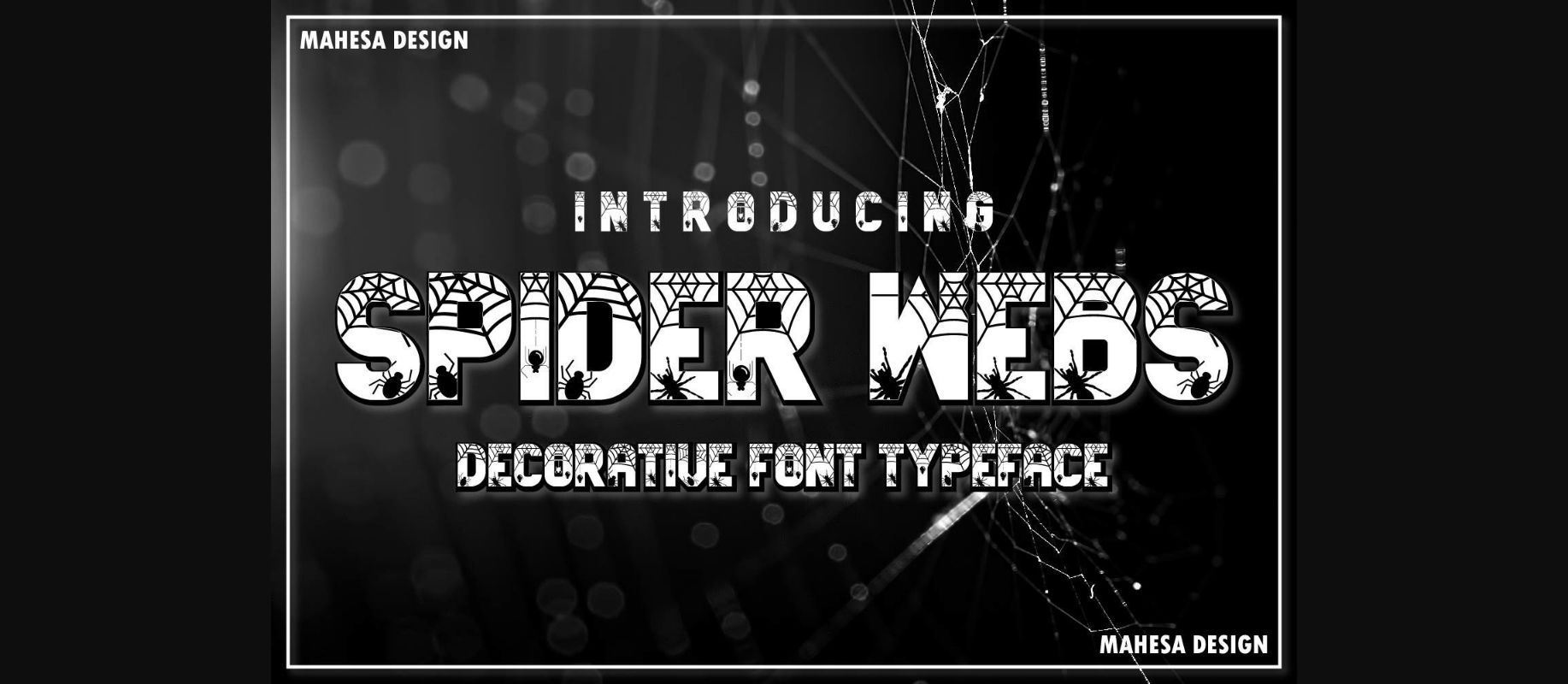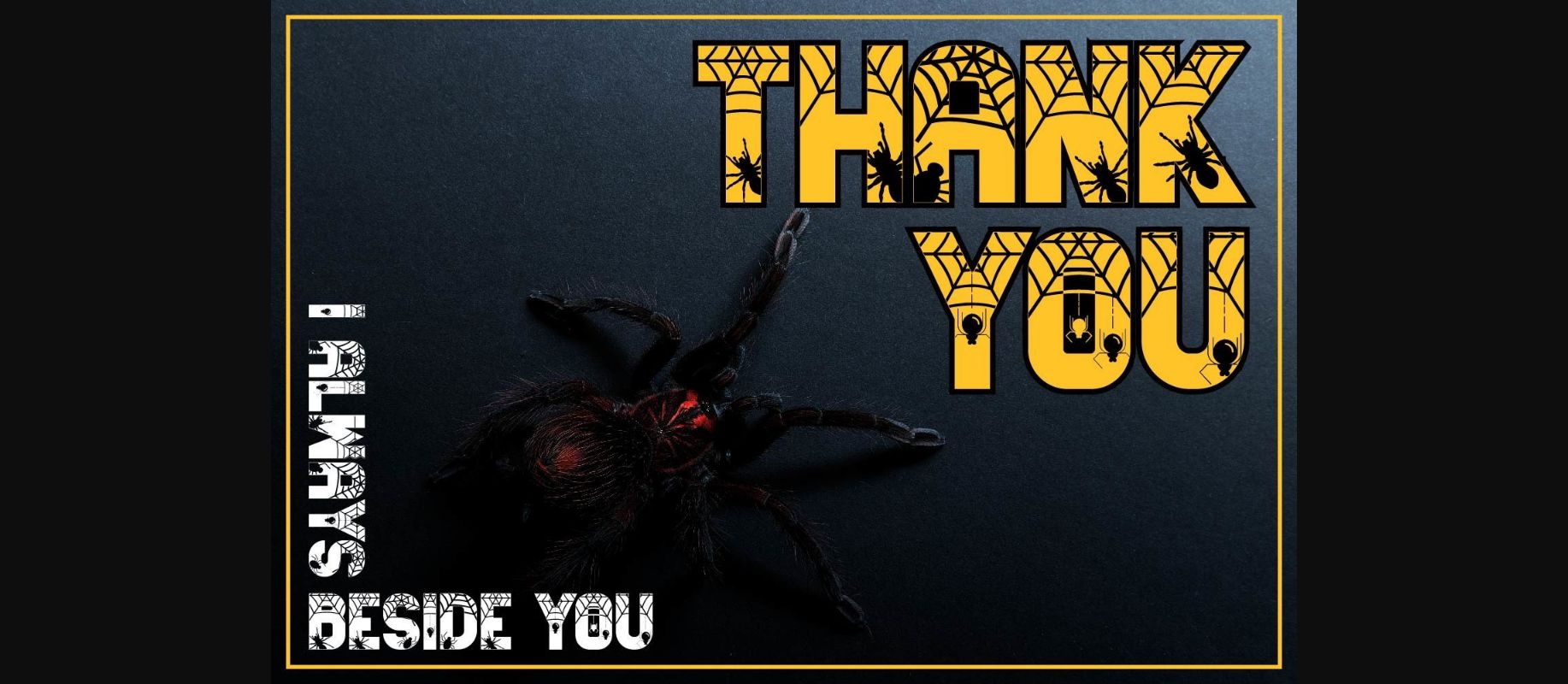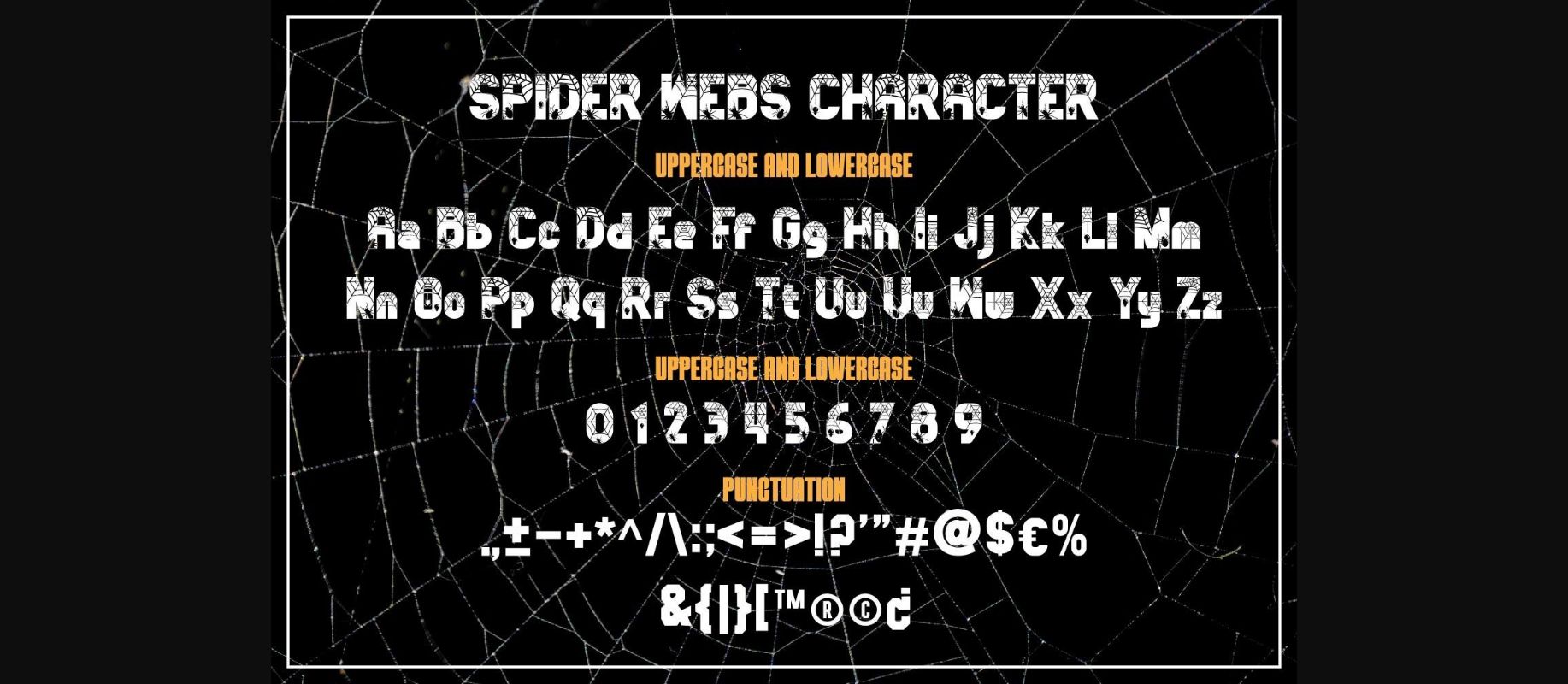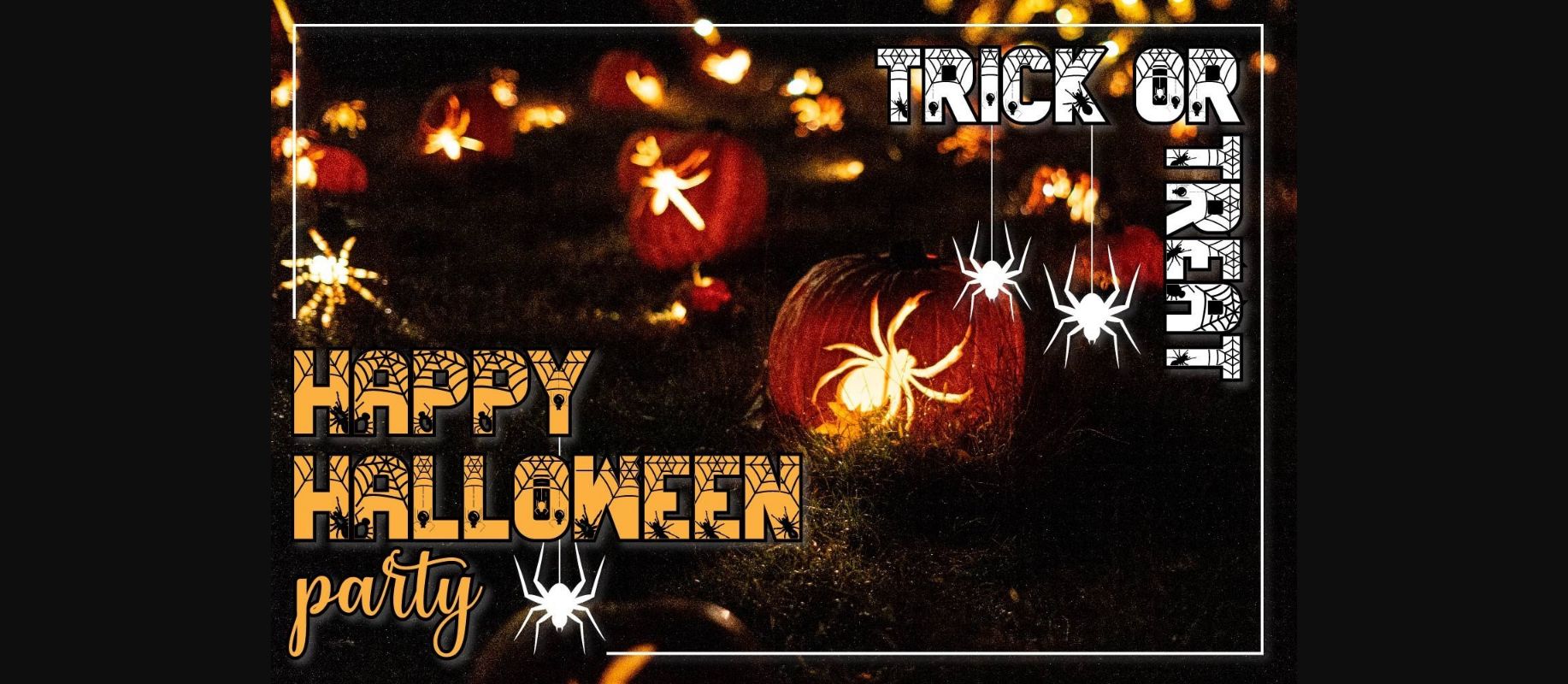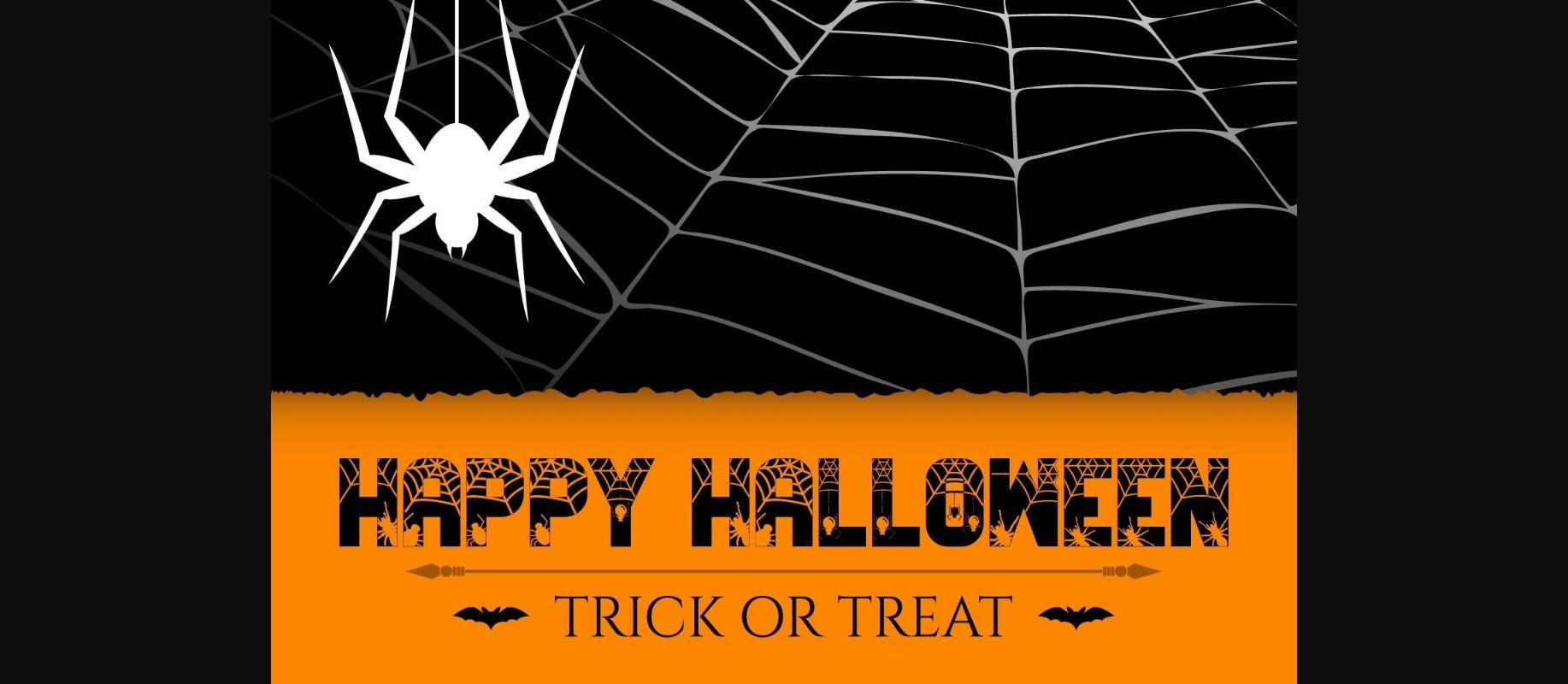
Spider Webs Font
About Spider Webs Font
Spider Webs is a fun Halloween font that is exactly what you would expect to see on a poster or merchandise designed for Halloween. The additional elements of spiders and webs make an ambiance of a Halloween event.